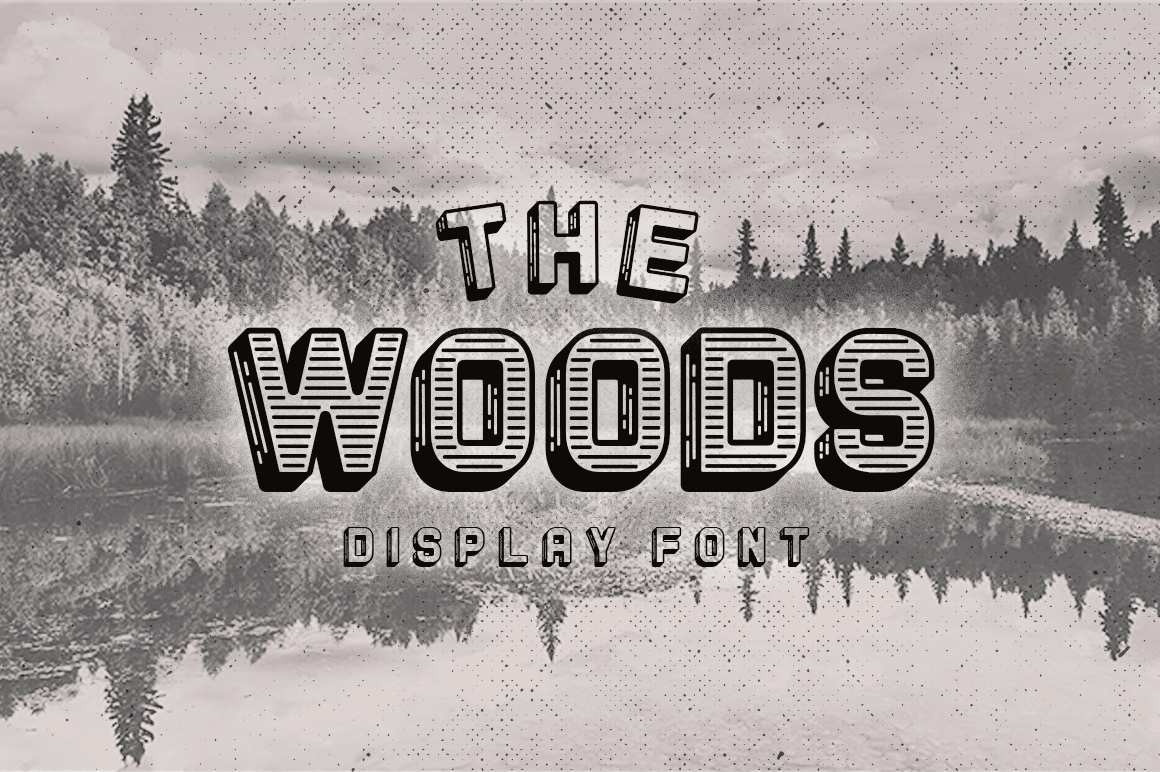
The Woods is a bold new display font family with 4 styles, each style has a great design feel to it and looks hand crafted. Use it big and make a bold statement. This display font is perfect for posters, and headings that need to be noticed.